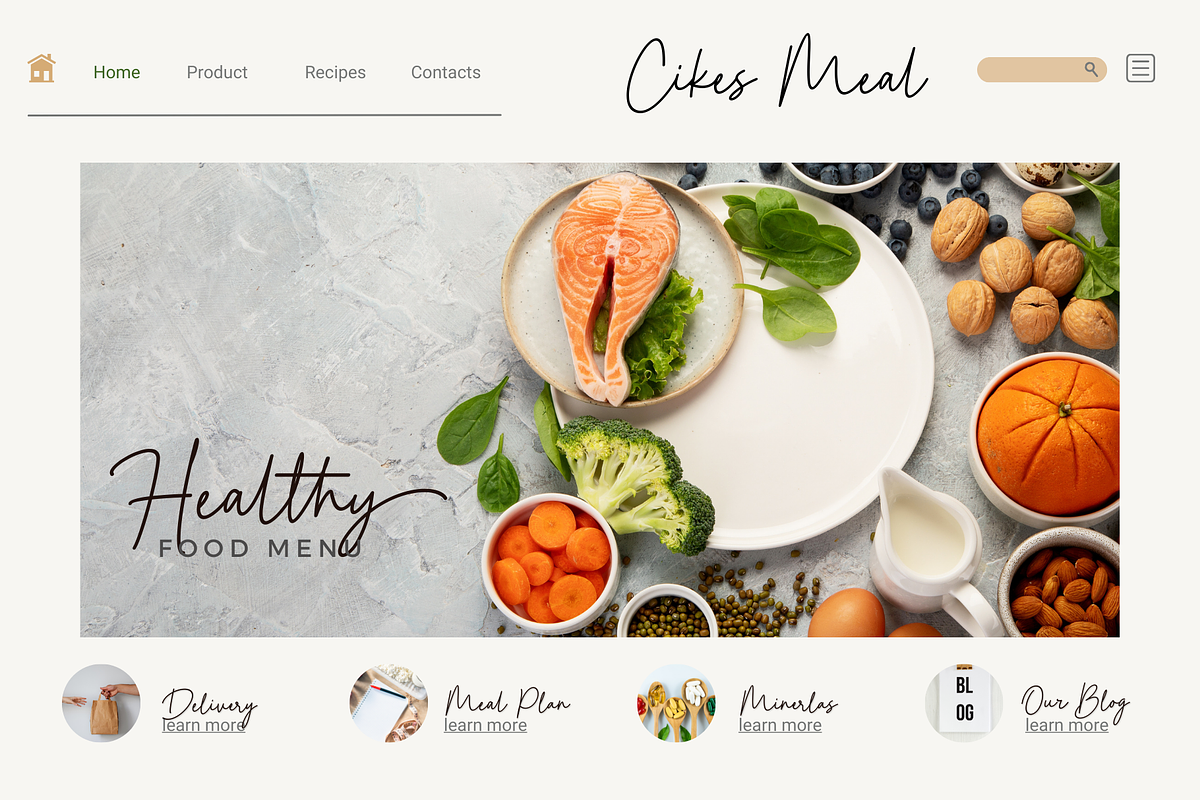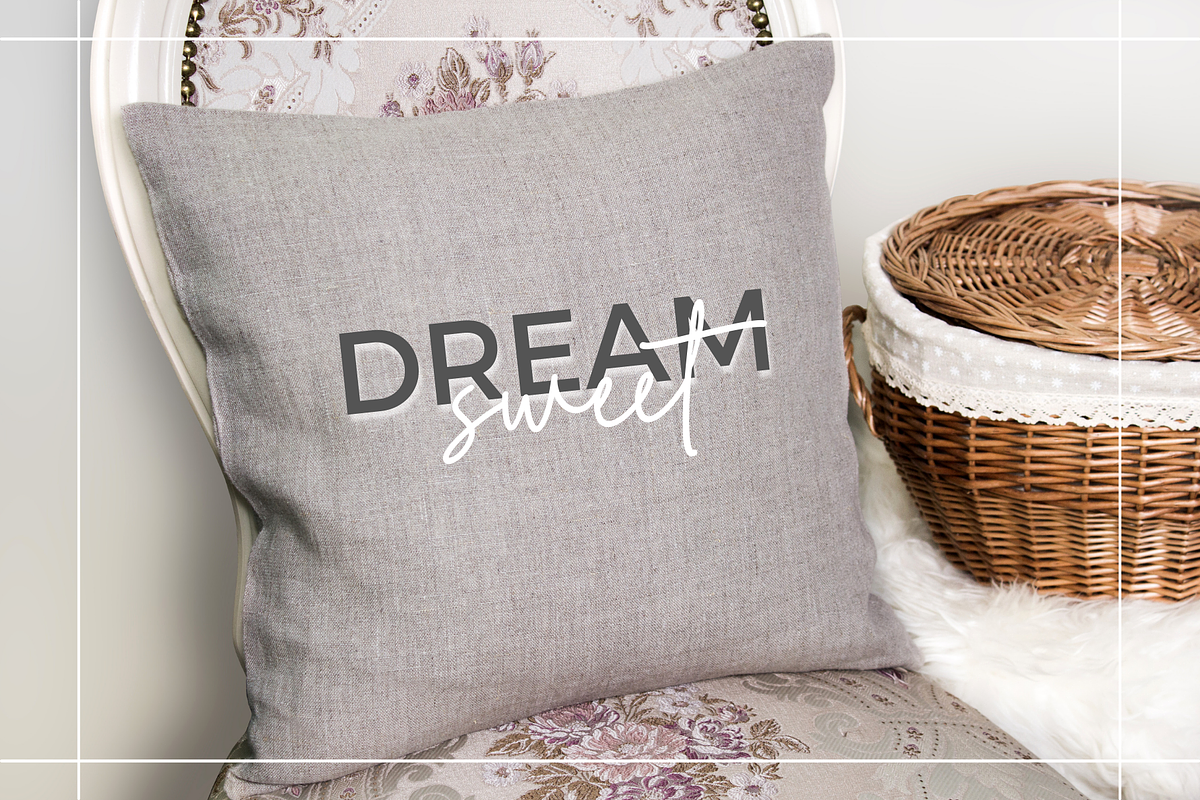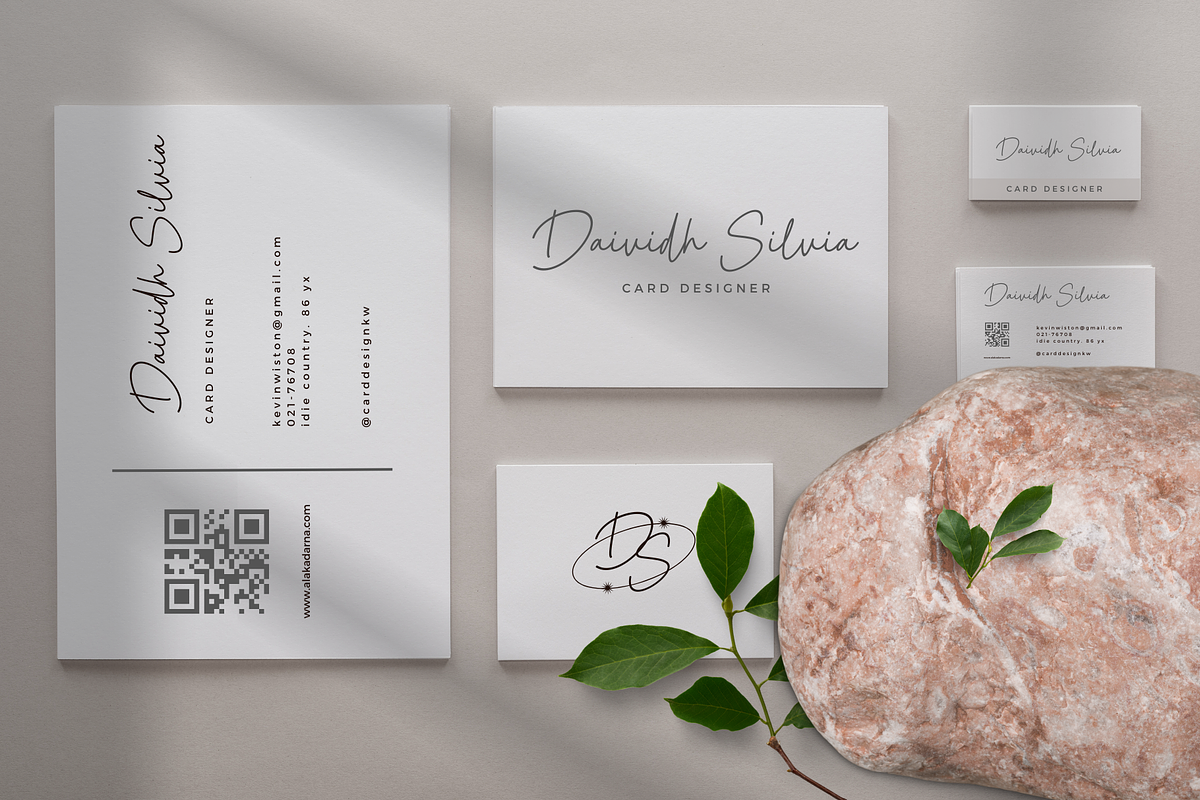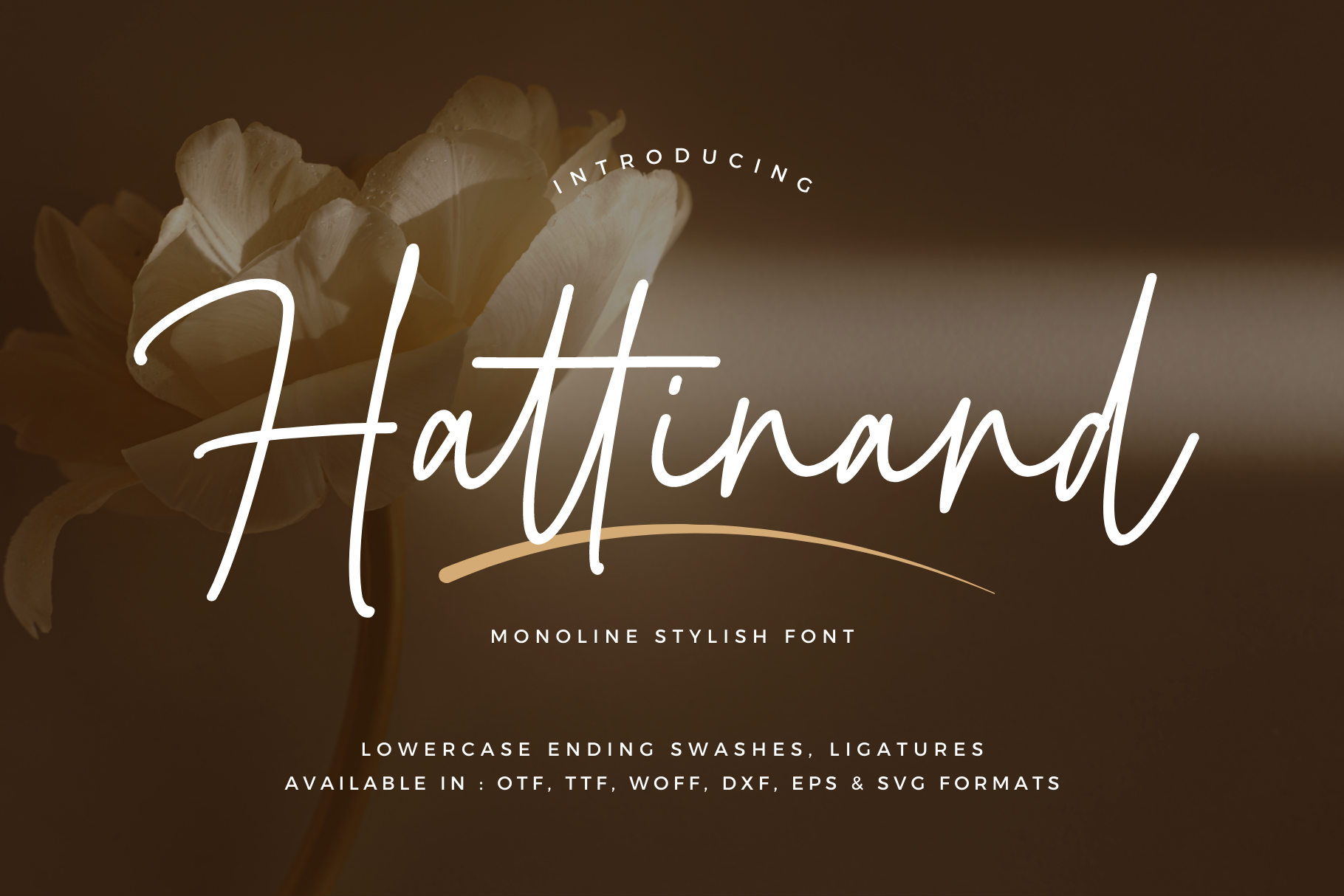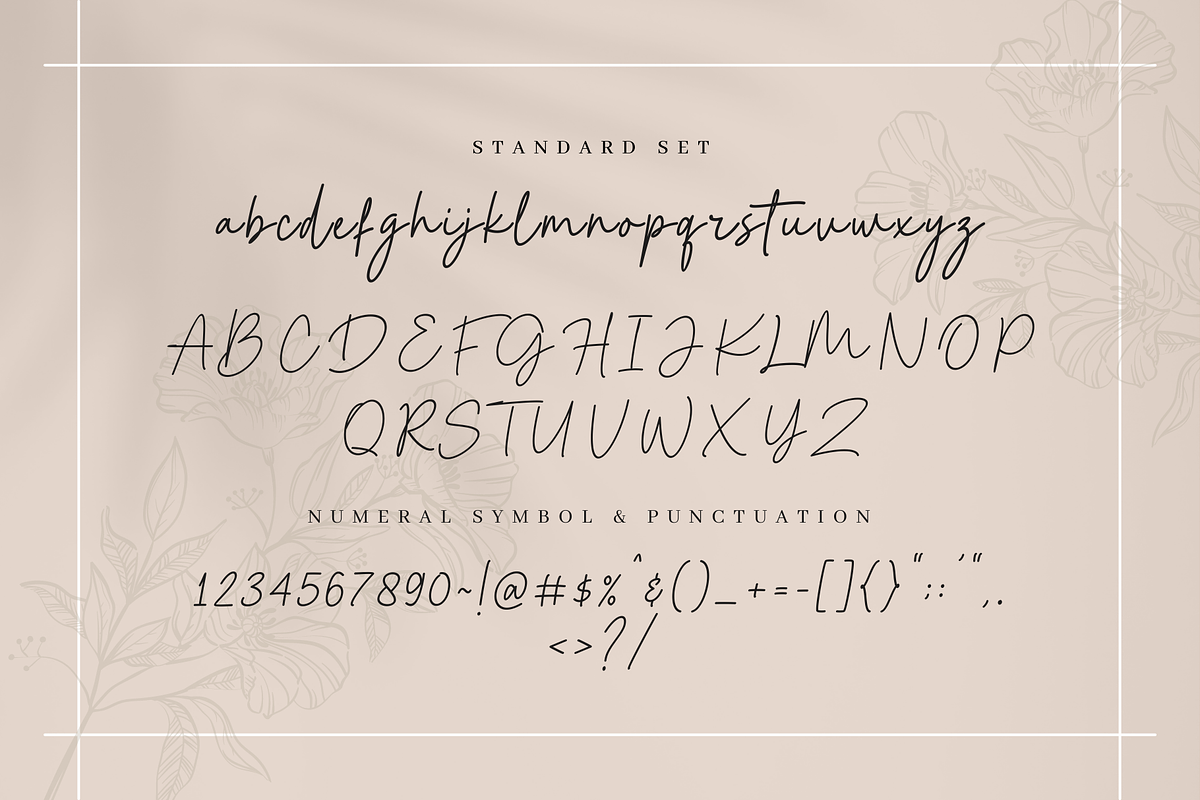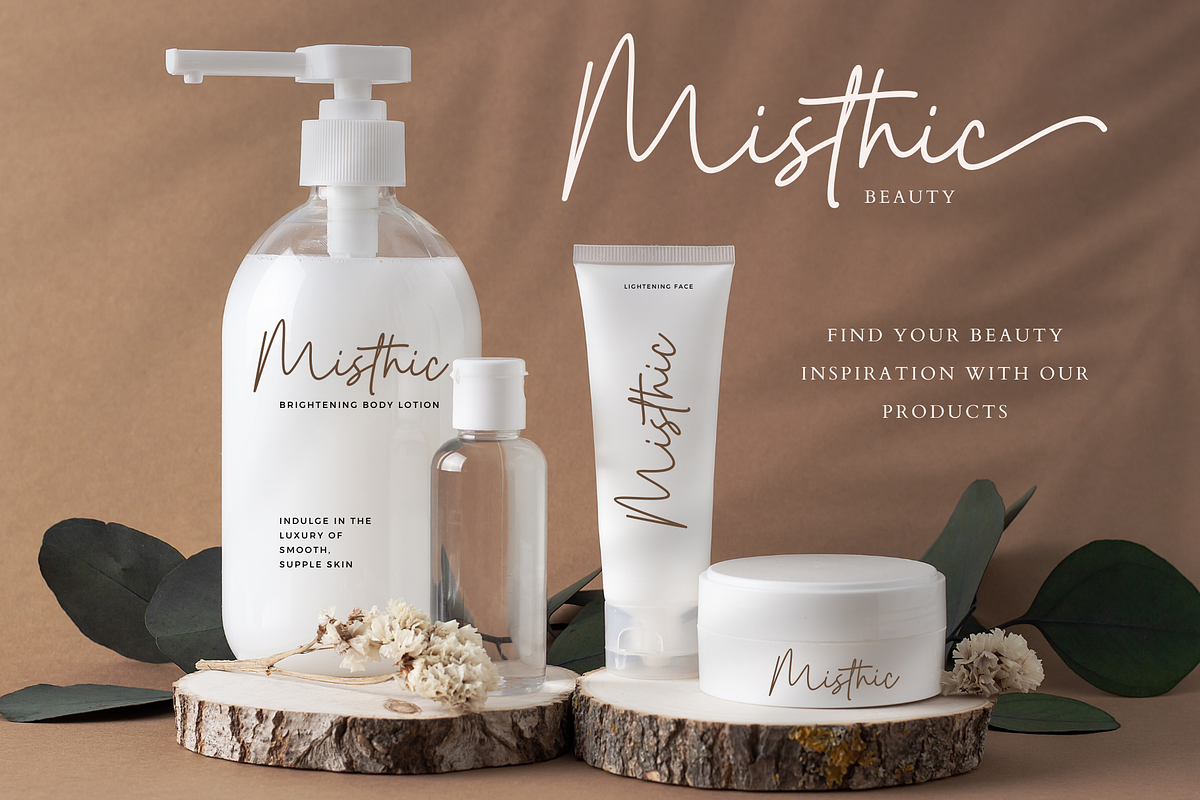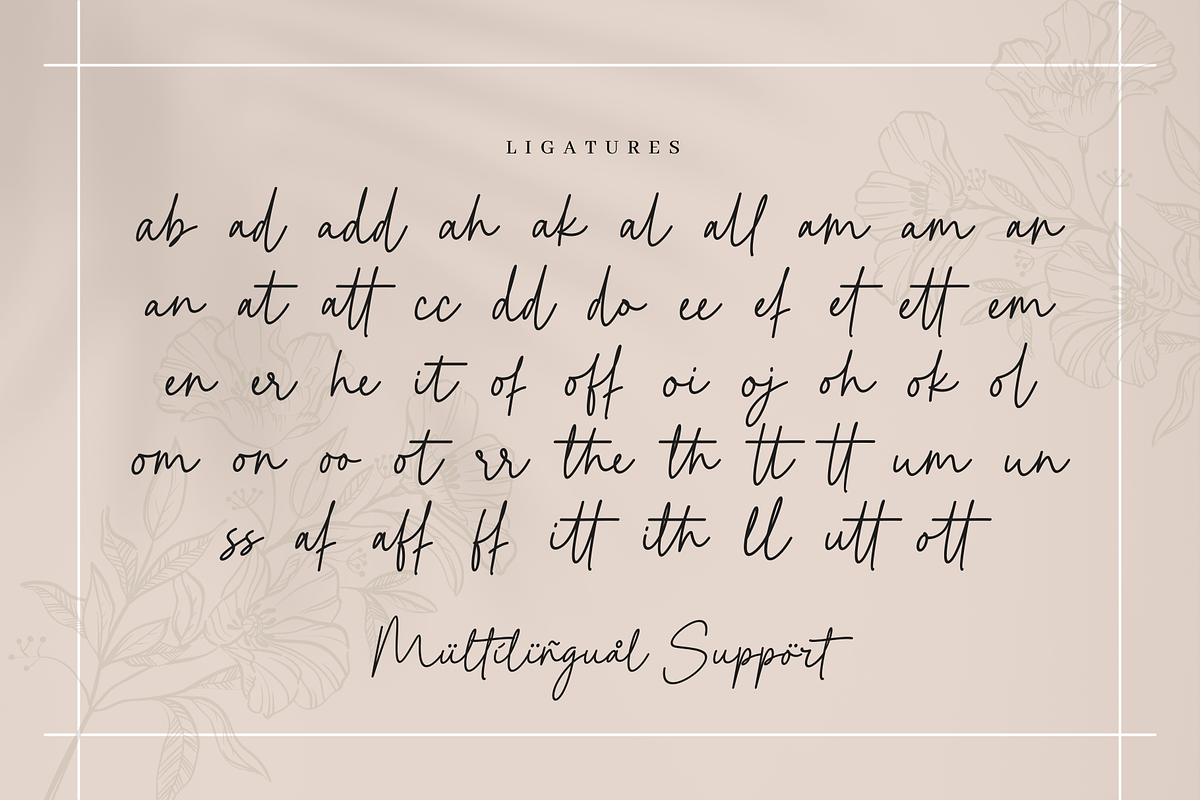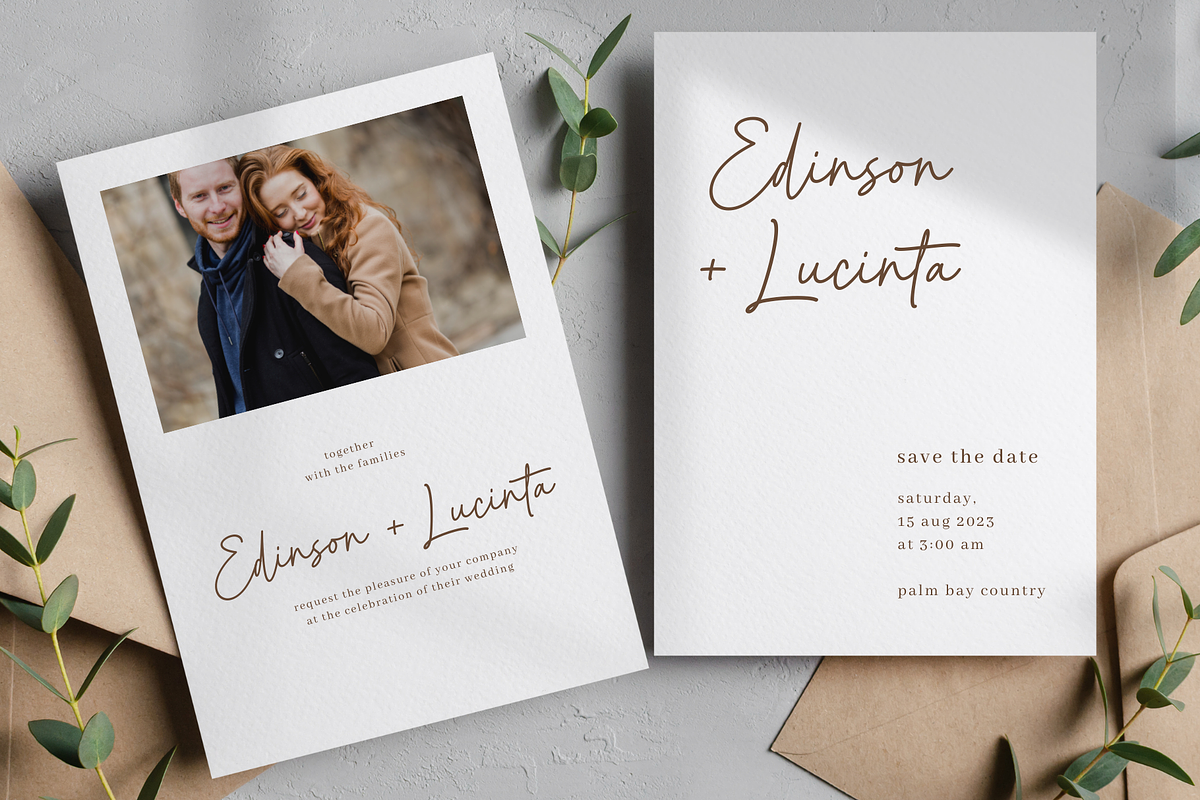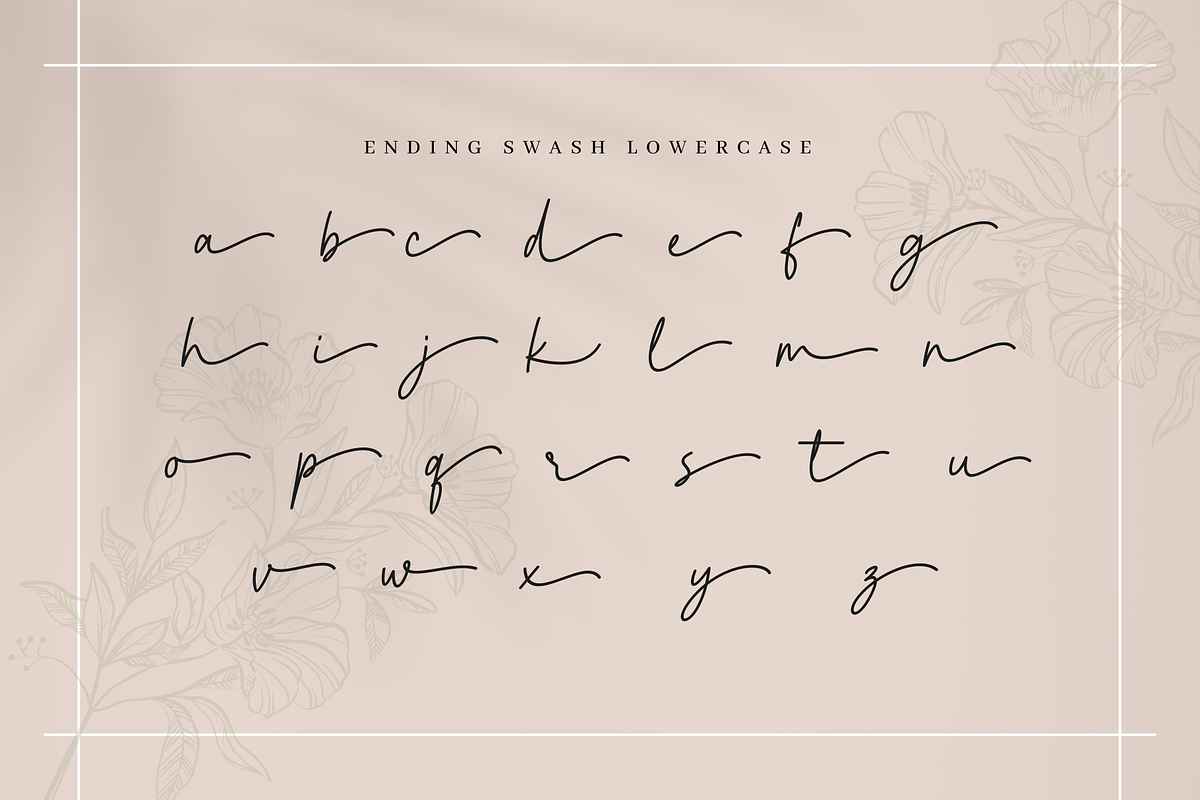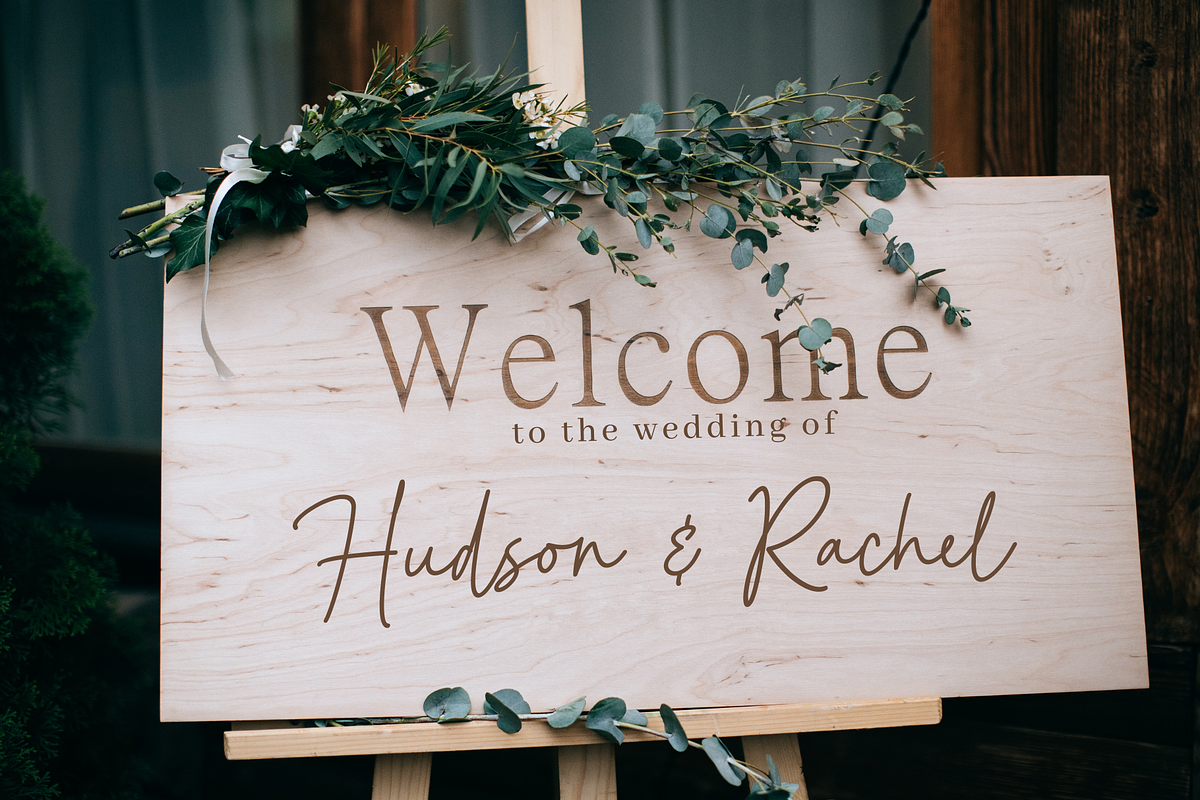
Hattinand - Monoline Font
"Hattinand" is a sleek monoline script font with beautifully crafted alternates and ligatures, perfect for adding a touch of elegance to any project. Its clean lines and delicate curves enhance readability and legibility, making it a versatile choice for branding, social media graphics, and advertising. This font's modern and stylish appearance adds a touch of sophistication to any design.
- Uppercase and lowercase letters
- Uppercase and lowercase Ending Swash
- 47 Ligatures
- Multilingual, numerals, and punctuation